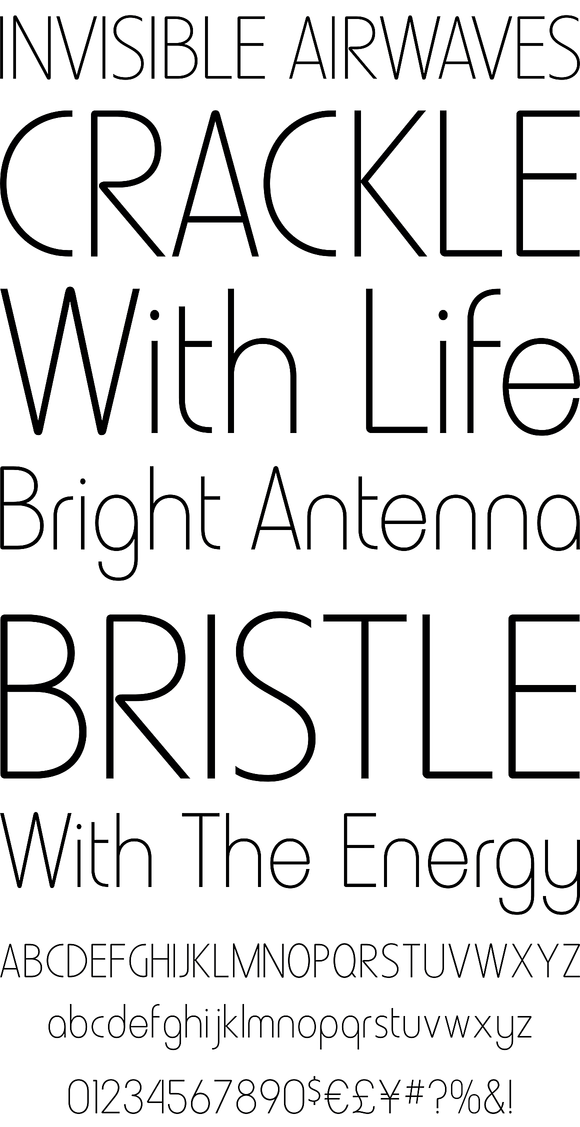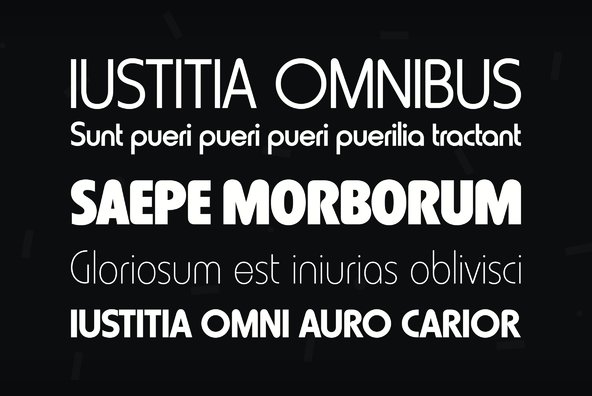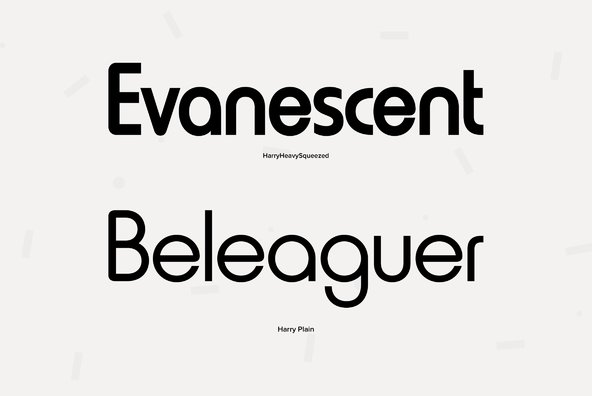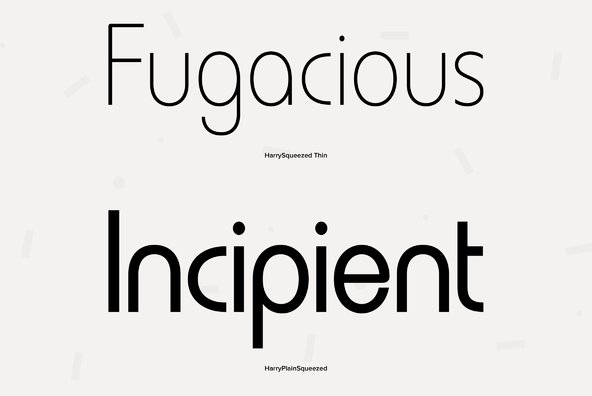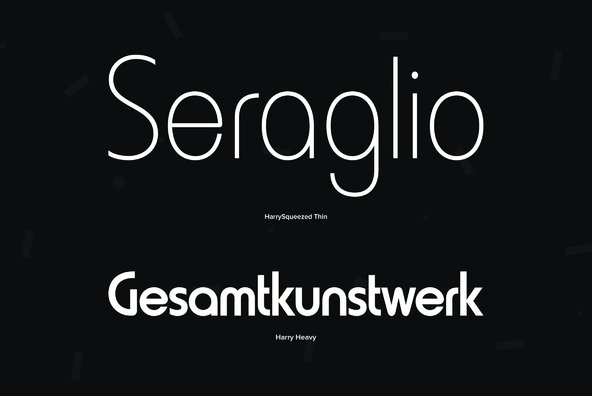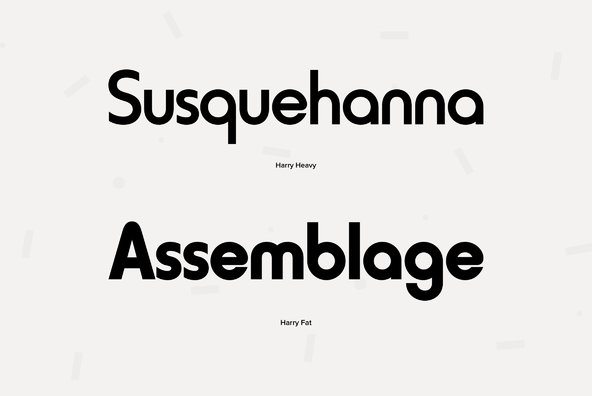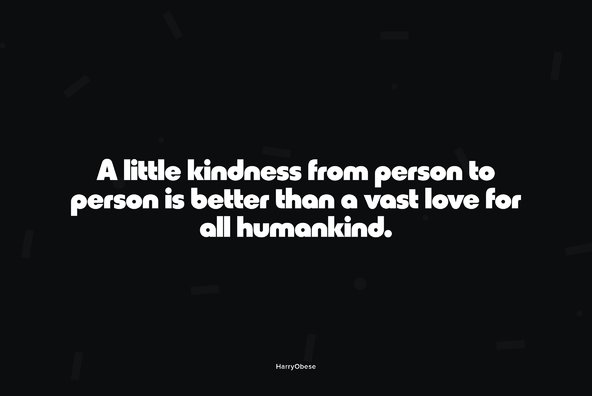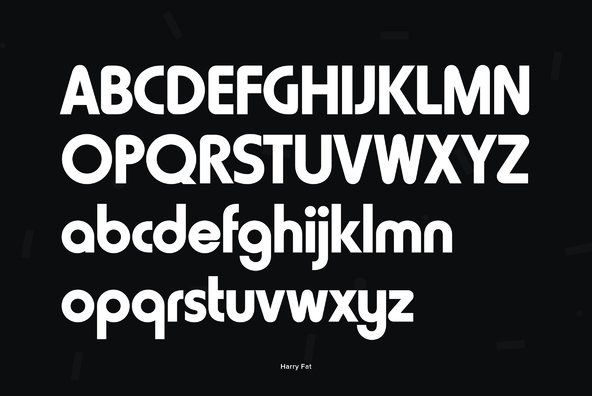
This revival of Harry is based on the original design by Marty Goldstein (and C.B. Smith).
This revival of Harry is based on the original design by Marty Goldstein (and C.B. Smith). Goldstein, born in Chicago in 1939, was the co-founder of the groundbreaking Creative Black Book. He graduated from the Pratt Institute in 1960. Harry, first published by VGC in 1966, was named for his father. ITF has added four new weights to the original six.